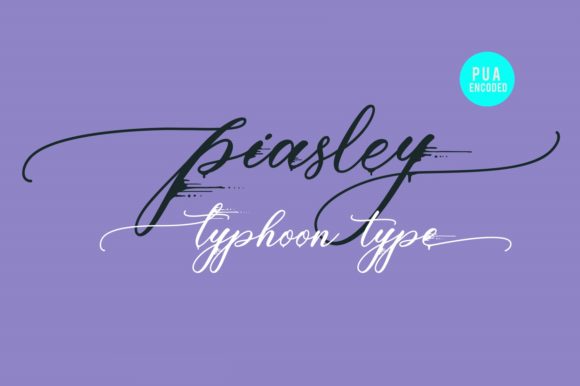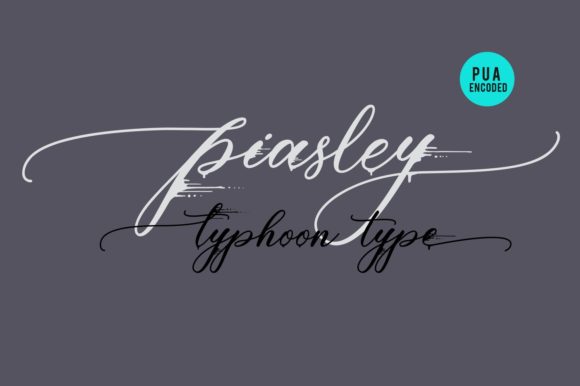
Introduction to Piasley Font
Remember that moment when you finally find the perfect design element to elevate your creative project? For designers, it’s a feeling like no other – a mix of excitement and relief. You’ve been searching for hours, scrolling through design resources, and stumbling upon countless fonts that just don’t quite fit the bill. But then, you see it – a delicate, fashionable script font that makes your design sing. Welcome to the world of Piasley Font, a high-quality, elegant script font that’s about to become your new go-to design companion.
Piasley Font is more than just a pretty face; it’s a valuable addition to any designer’s toolkit. With its thin, elegant lines and PUA encoding, you’ll be able to access all the glyphs and swashes you need to create stunning designs. Whether you’re working on a project with a transparent background or a bold, eye-catching graphic, Piasley Font is the perfect choice. And the best part? It’s available for free download, making it an essential resource for any designer looking to take their creative projects to the next level.
Key Features of Piasley Font
- This font features a transparent background, allowing for seamless integration into various design elements.
- The Piasley Font’s unique, cursive design makes it perfect for creative projects that require a touch of elegance and sophistication.
Honest Review: Piasley Font
The font itself is a beautifully crafted script font with a transparent background, making it perfect for overlaying on images or backgrounds. The Piasley Font is a great choice for anyone looking to add a touch of elegance to their design.
Here are some of the things that I love about the Piasley Font: ✨
- Beautiful script style
However, I did notice a few limitations: ⚠️
- The font may not be suitable for very large or complex text
- The free version has limited character set
Overall, I’m really impressed with the Piasley Font. It’s a great design resource that’s perfect for adding a touch of creativity to your projects. With its high-quality design and transparent background, it’s a must-have for any designer.
Common Use Cases for Piasley Font
The Piasley Font is ideal for use in creative projects, such as logos, brochures, and social media graphics. Its high-quality design and transparent background make it a versatile resource for designers of all skill levels.